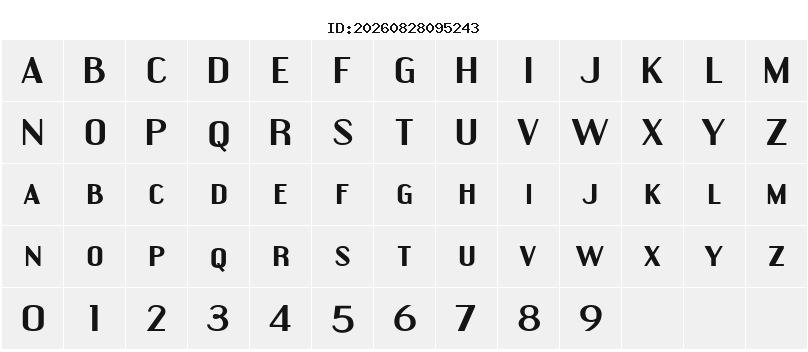
• Font Name: TrSah Engebrechtre Expanded
• Font ID: Ceviz RayLarabie: Engebrechtre Expanded Bold: 2000
• Full Font Name: TrSah Engebrechtre Expanded Bold
• PostScript Name: TrSahEngebrechtreExpanded-Bold
About TrSah Engebrechtre Expanded.ttf
TrSah Engebrechtre Expanded.ttf is a modern, elegant sans-serif font designed for ultimate readability and visual harmony. Perfect for branding, headlines, web design, and print materials.